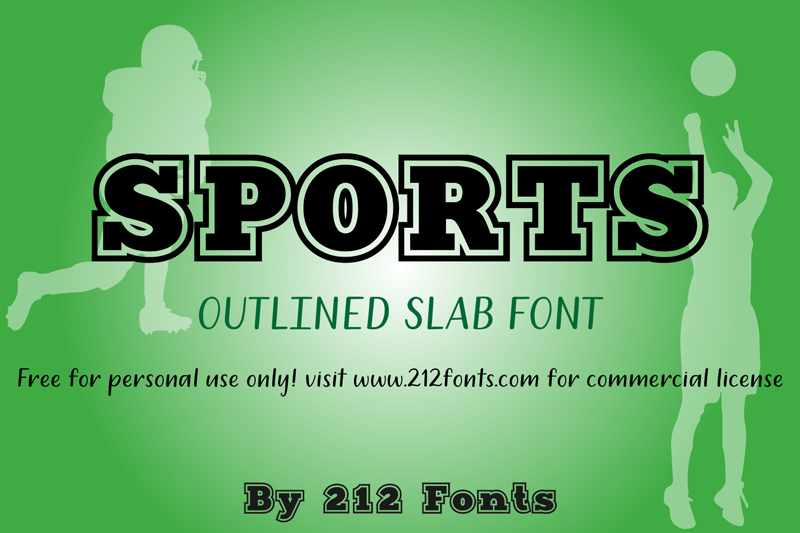
Preview and download 212 Sports Font. Created by Elizabeth in Fancy Old School styles with Free for personal use license.
212 Sports is bold, outlined slab lettering similar to college and sports jerseys! It is free for personal use only. Buy the commercial license for $6 and get a bonus sports dingbat font here: https://www.twenty3stars.com/products/sports-display-dingbat-font-otf-by-212fonts https://www.creativefabrica.com/designer/212-fonts/ref/236350 https://fontbundles.net/212-fonts/560171-212-sports-display-font-jersey-alphabet-and-dingba#gtmList=6>mPos=1 Donations are very much appreciated! |